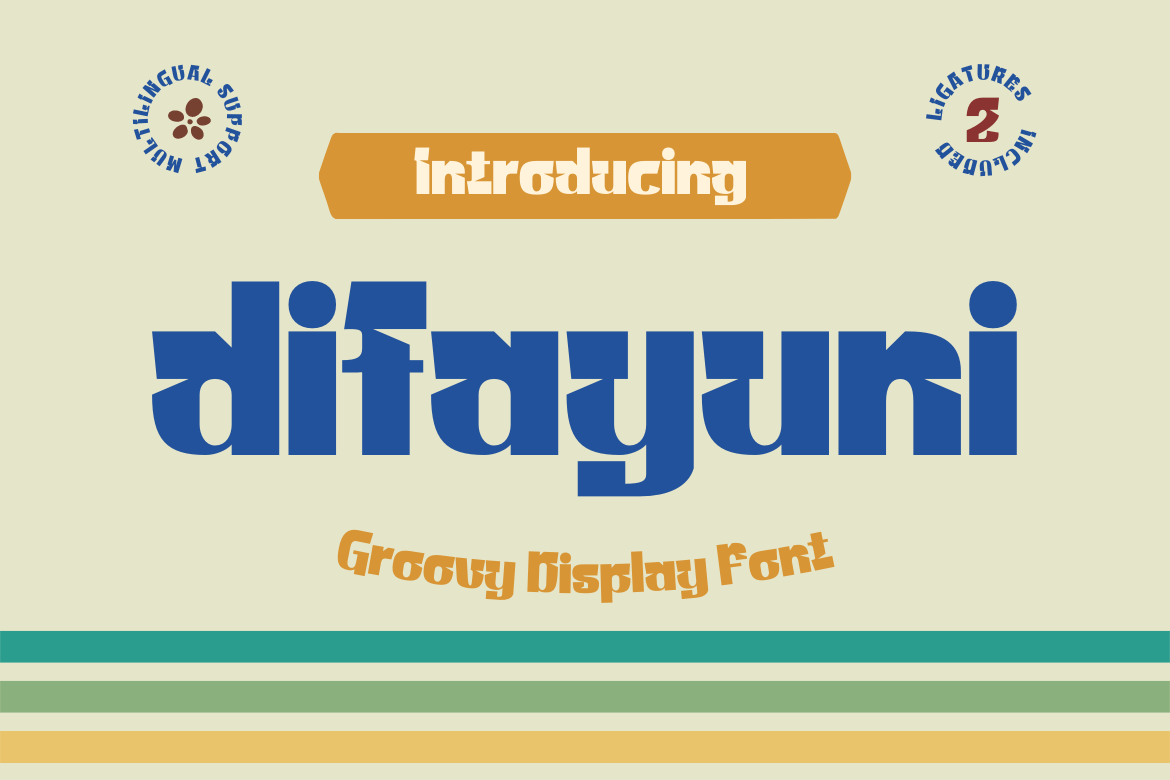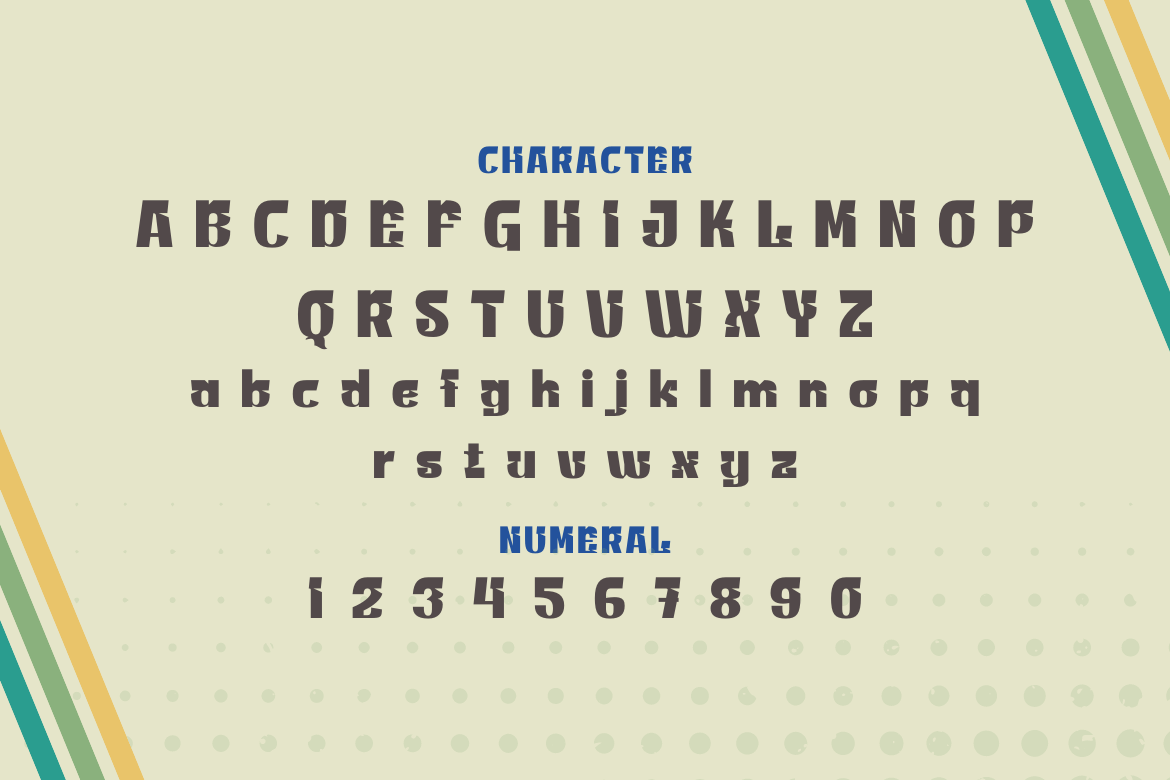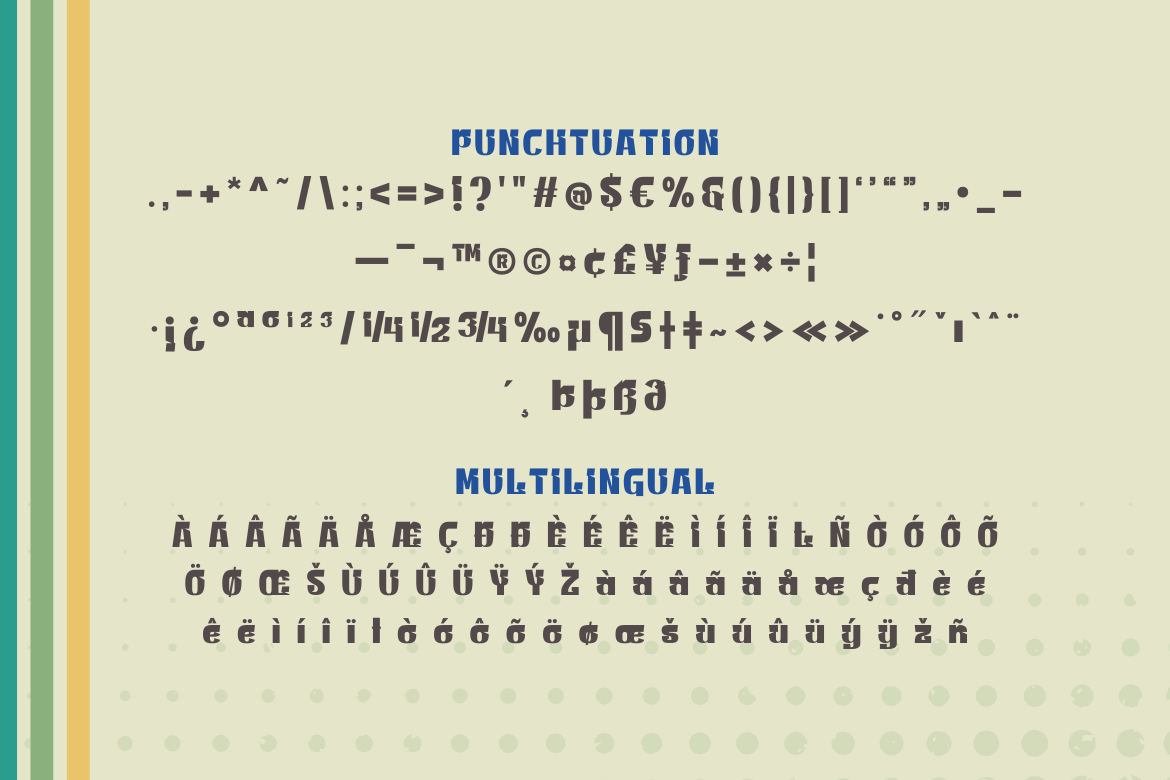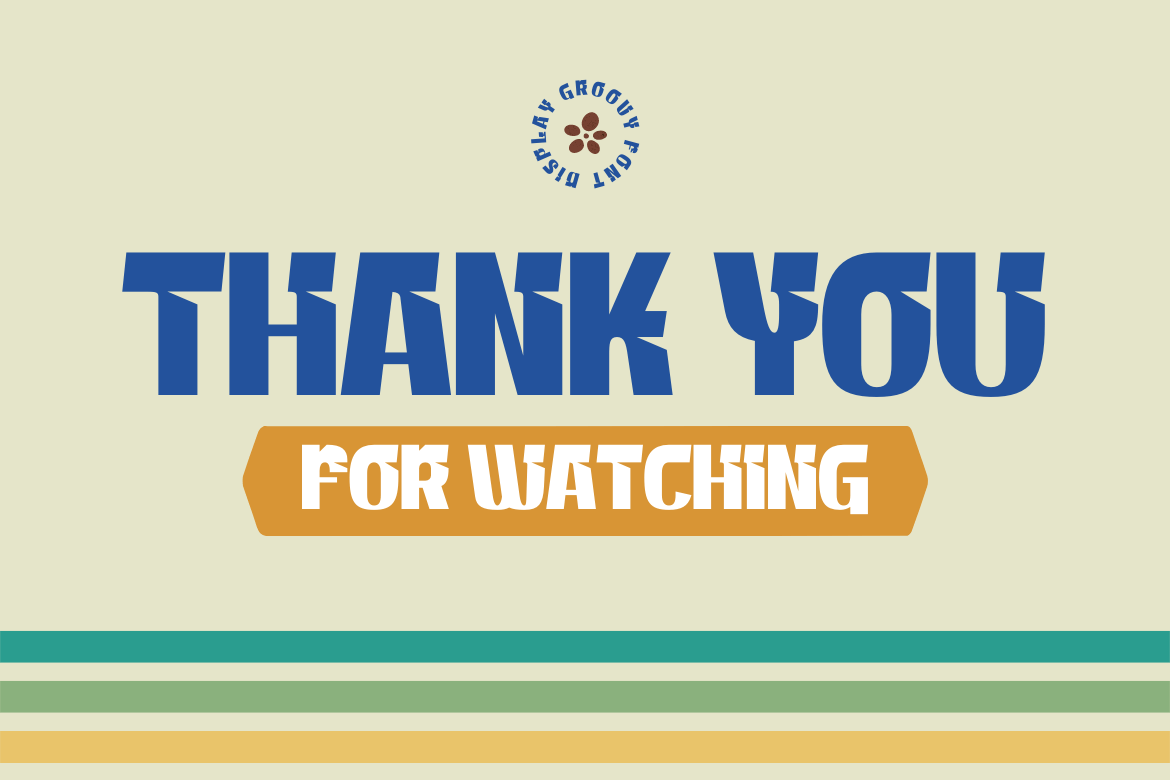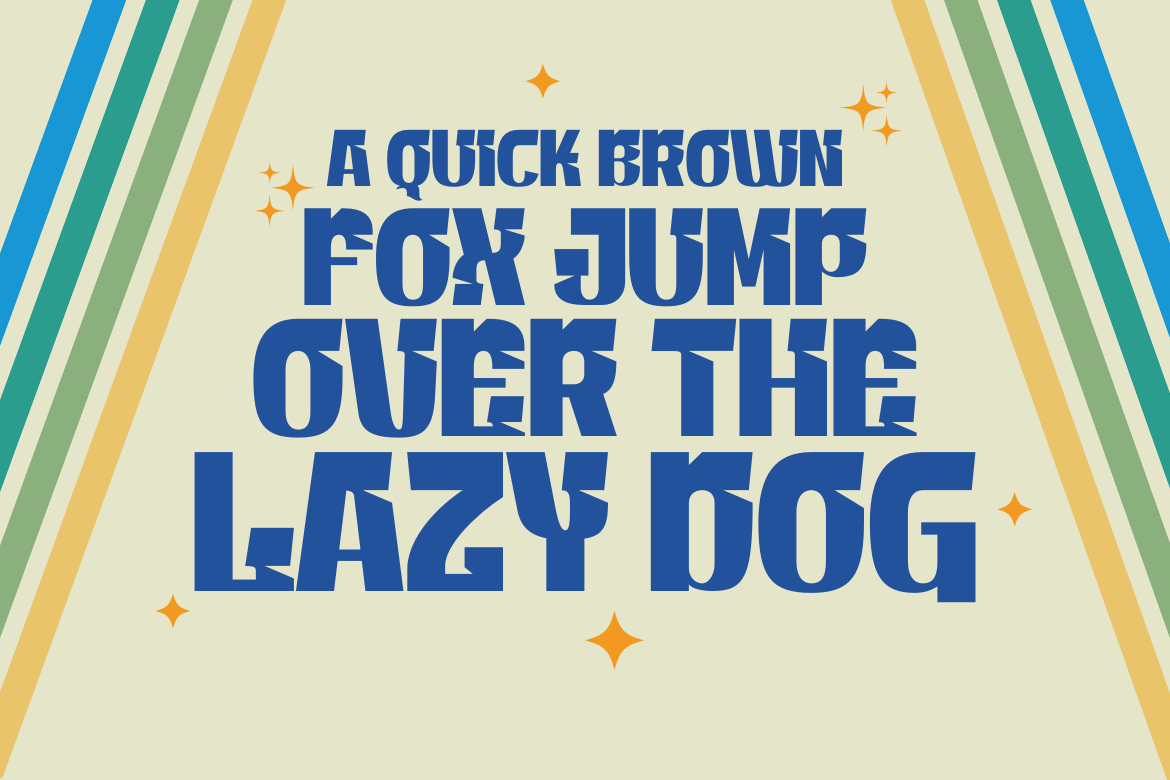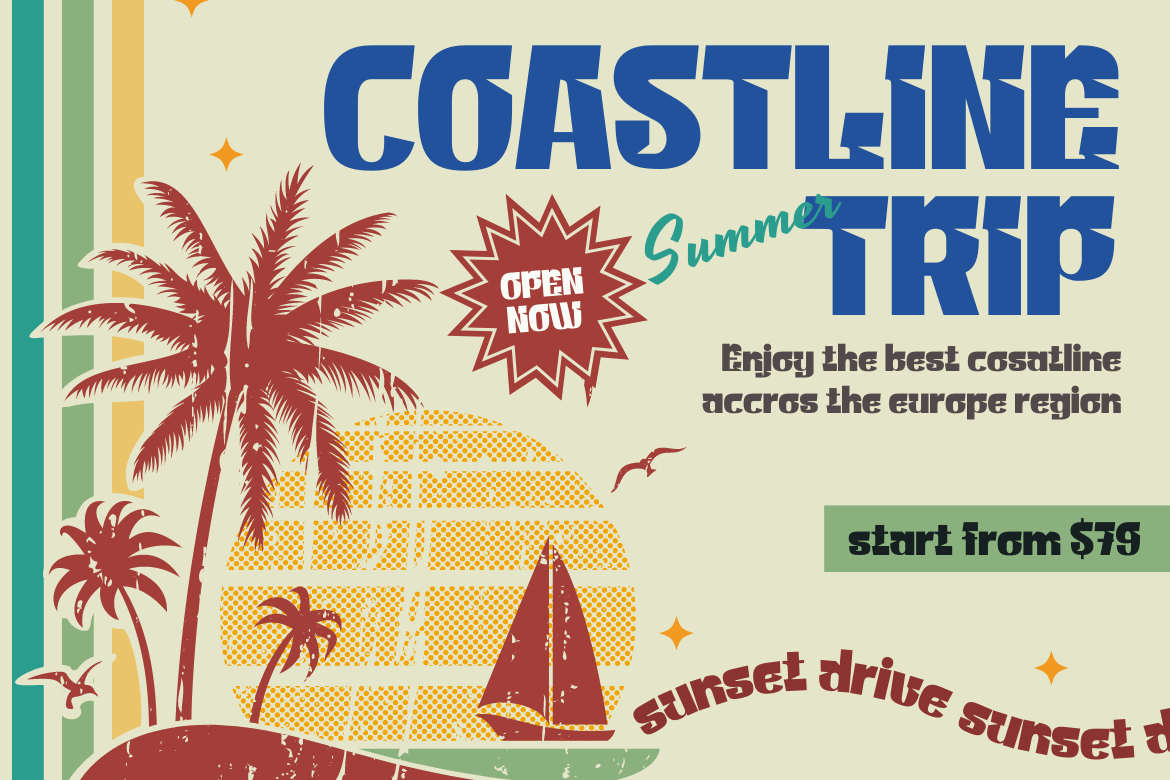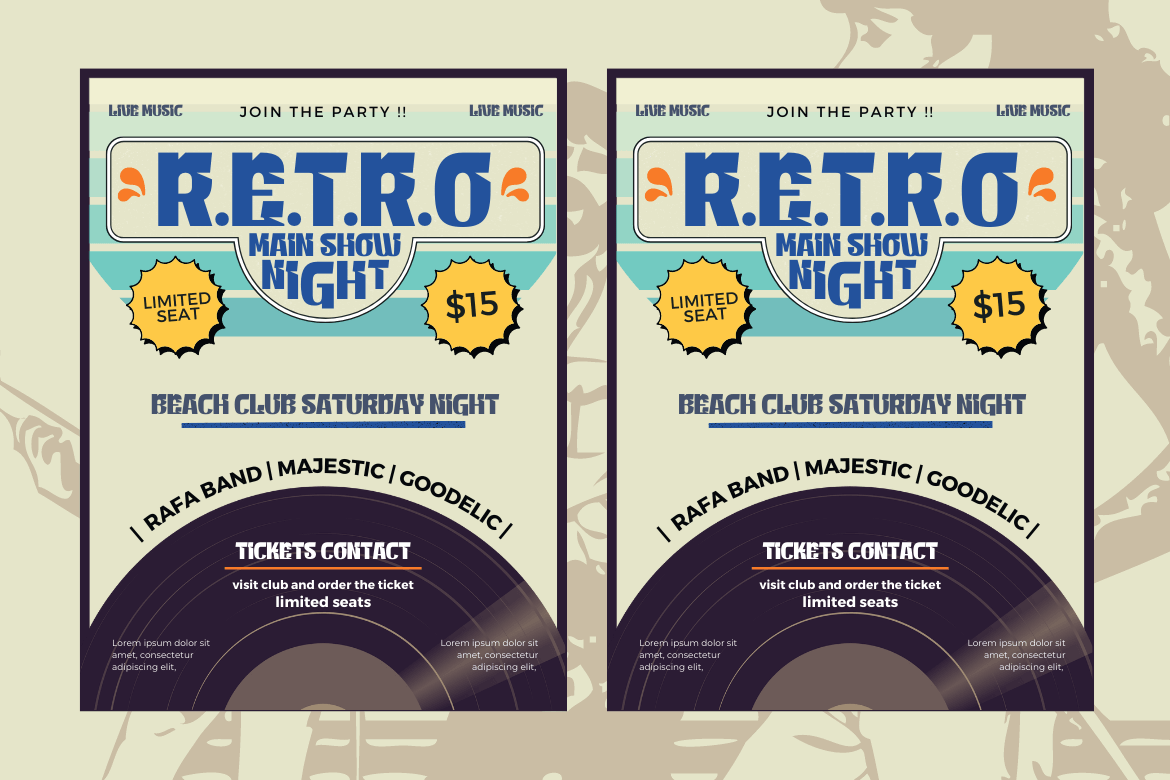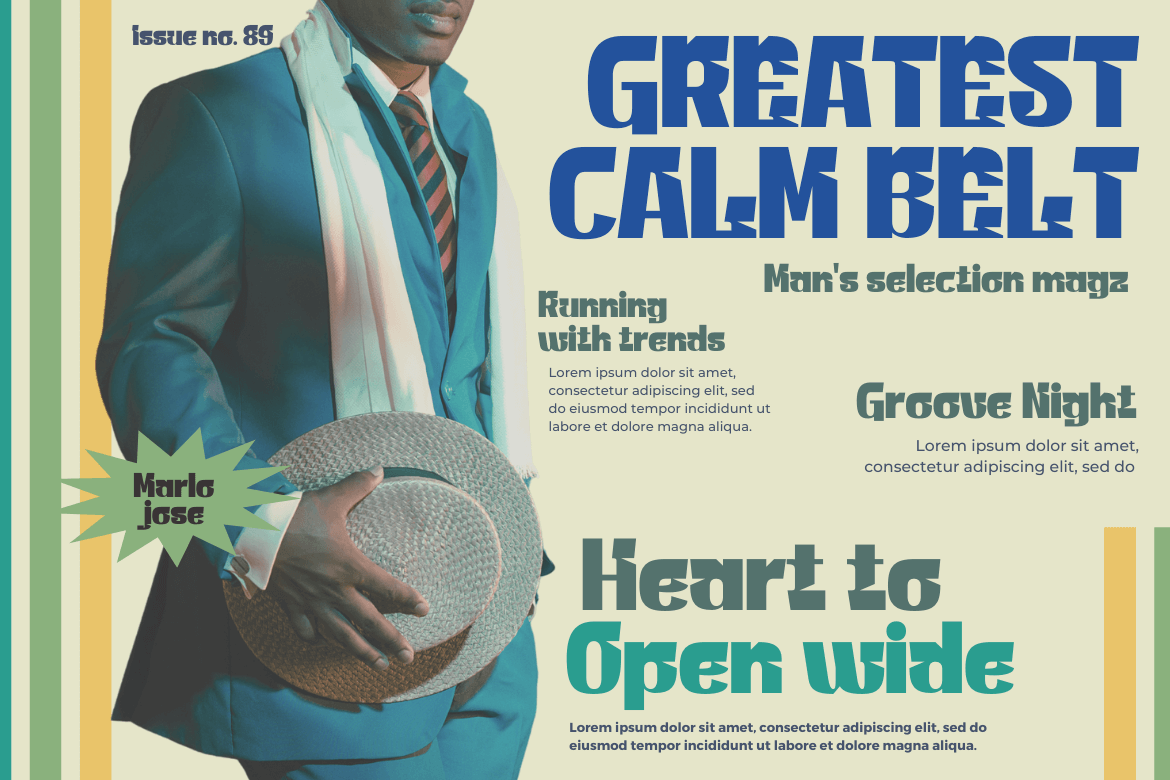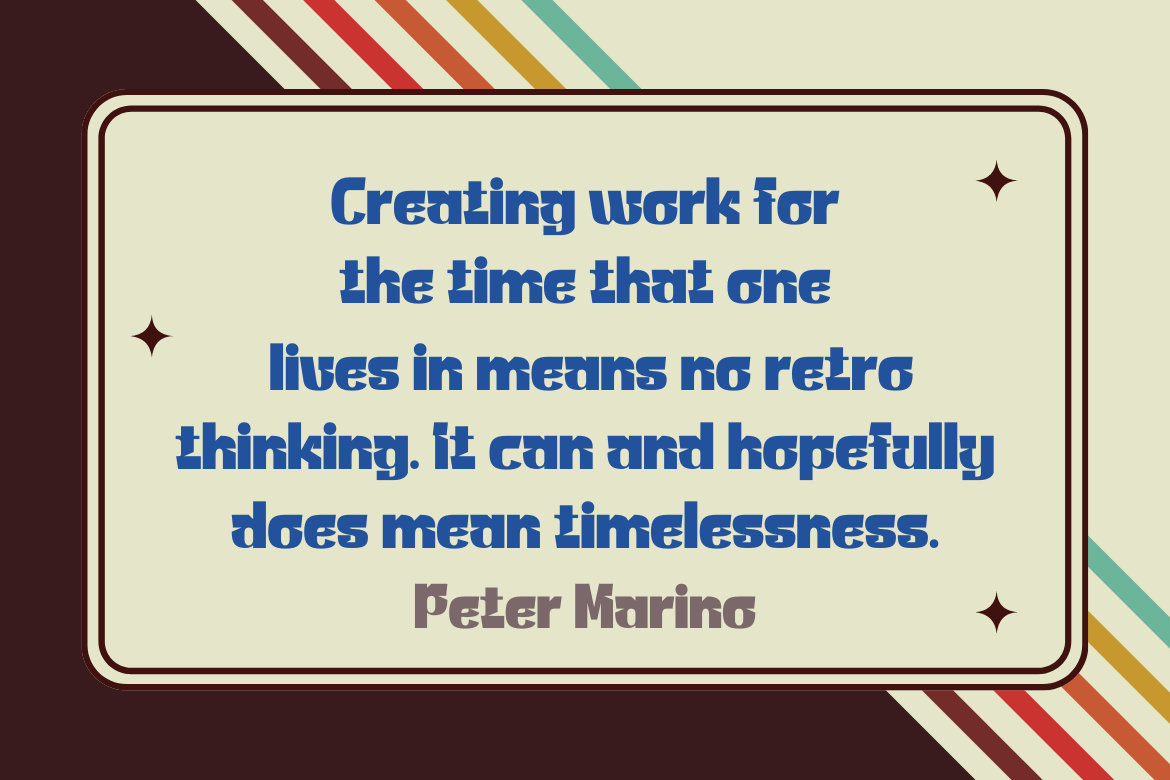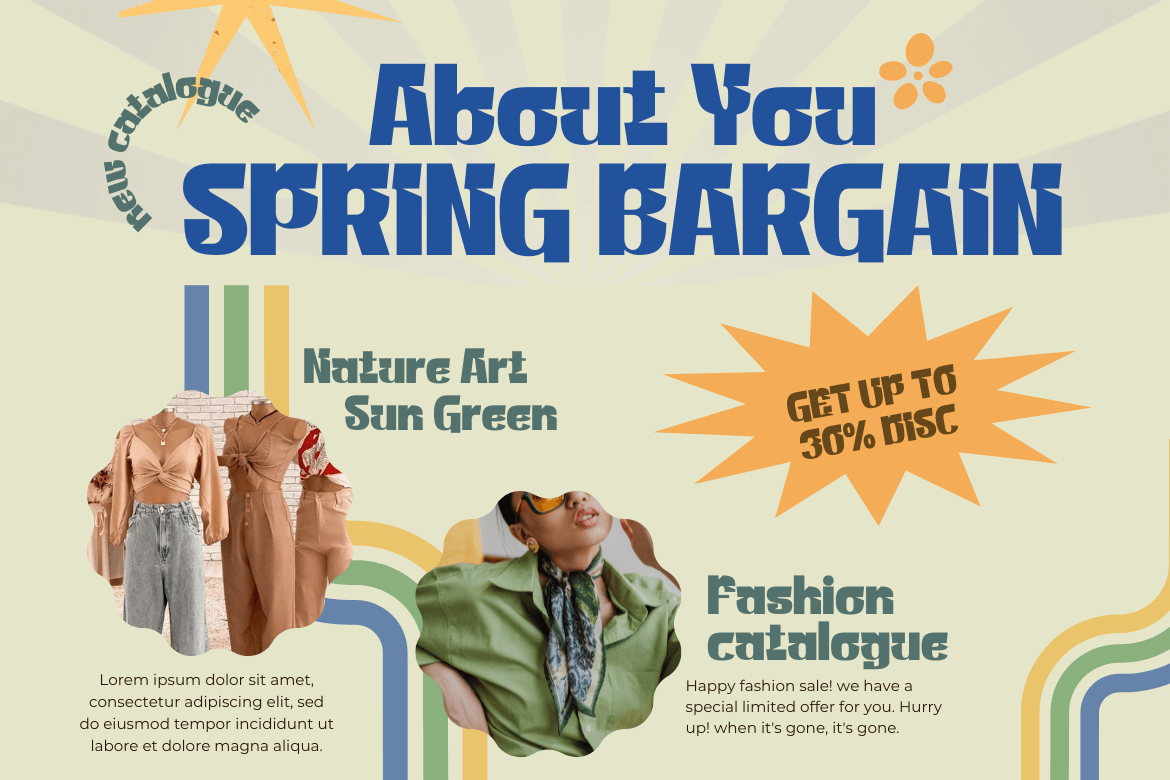
difayuni | Groovy Retro Font
difayuni, the ideal font for all your design requirements, is now available! This elegant font is suitable for your readers because it is simple to read. It’s also ideal for branding, product packaging, or even just to add a little flair to your editorial work. Difayuni is a contemporary font with geometric shapes and accuracy that will add a touch of elegance to any design. Thus, stop delaying and incorporate difayuni into your designs right away!